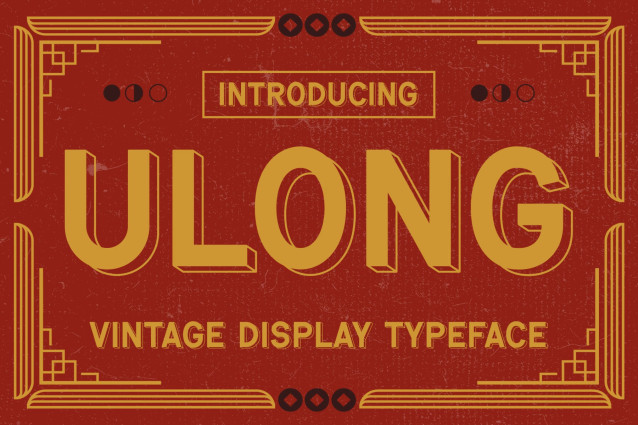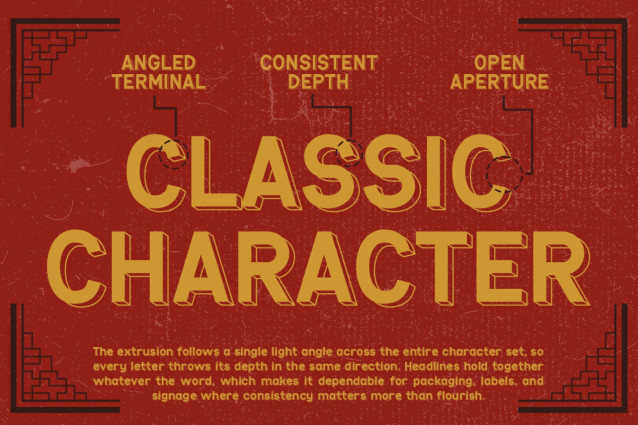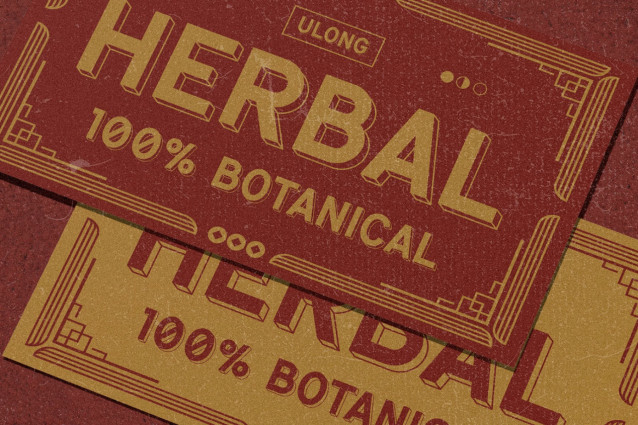
Ulong Font
Ulong – Classic, Authentic & Rich in Tradition
Vintage Font Ulong is a refined display font inspired by traditional heritage packaging, antique labels, and classic oriental craftsmanship. Not only does it feature elegant vintage letterforms, but it also blends geometric precision with decorative charm to create a timeless visual identity. Moreover, its balanced proportions and clean structure evoke the sophistication of old tea houses, premium herbal products, and historical branding. In addition, the bold yet graceful characters offer excellent readability across both large headlines and product labels.
Furthermore, every letter carries a sense of authenticity and craftsmanship. As a result, your packaging, branding, and editorial designs instantly gain a premium vintage appeal. Meanwhile, its nostalgic style creates trust and tradition while remaining suitable for modern applications.